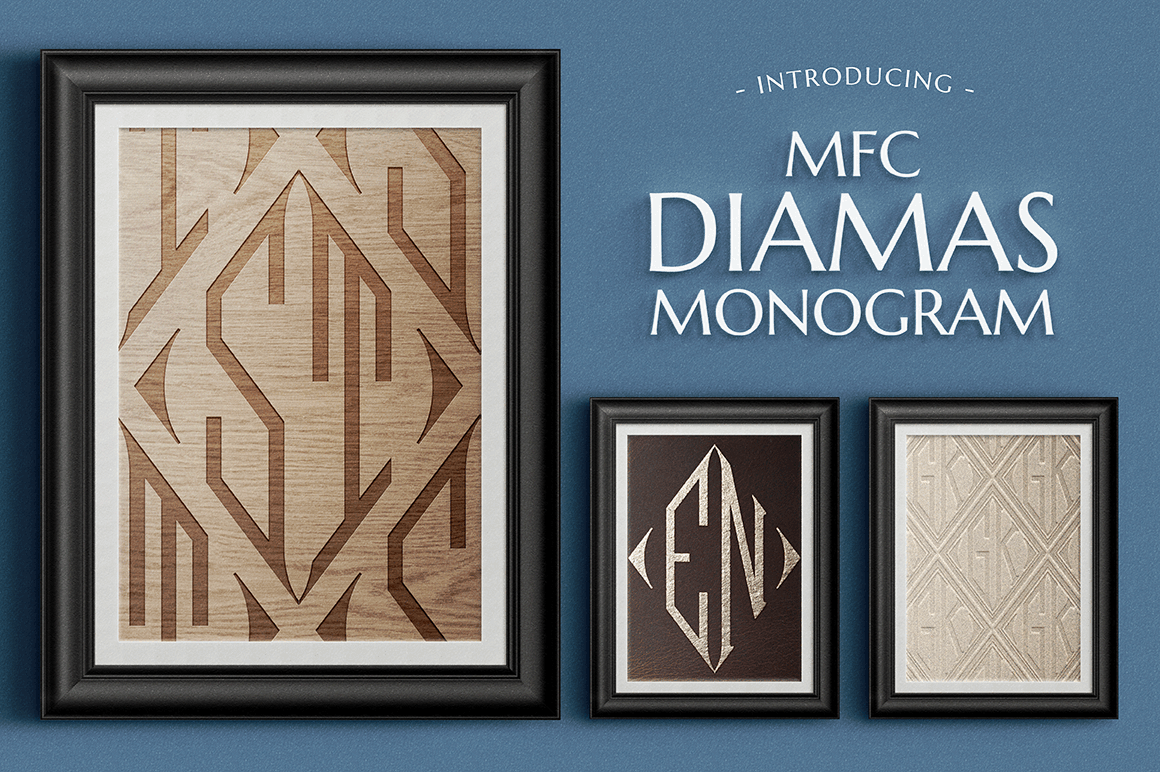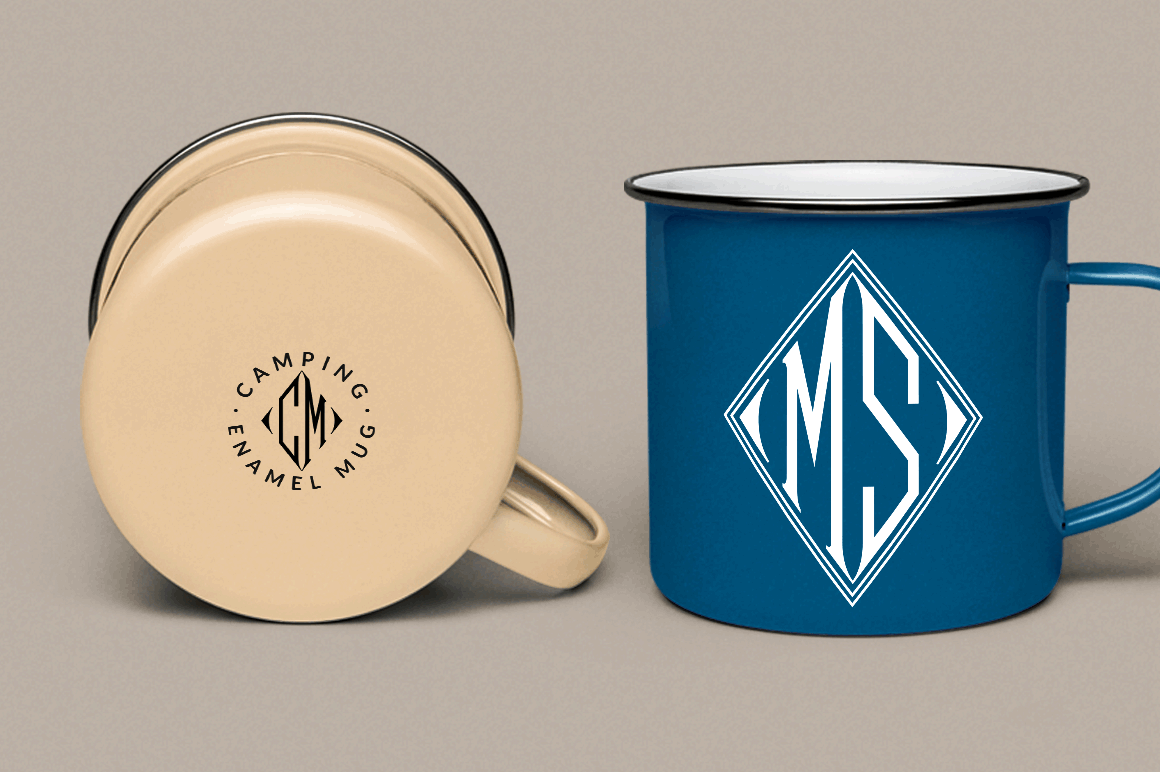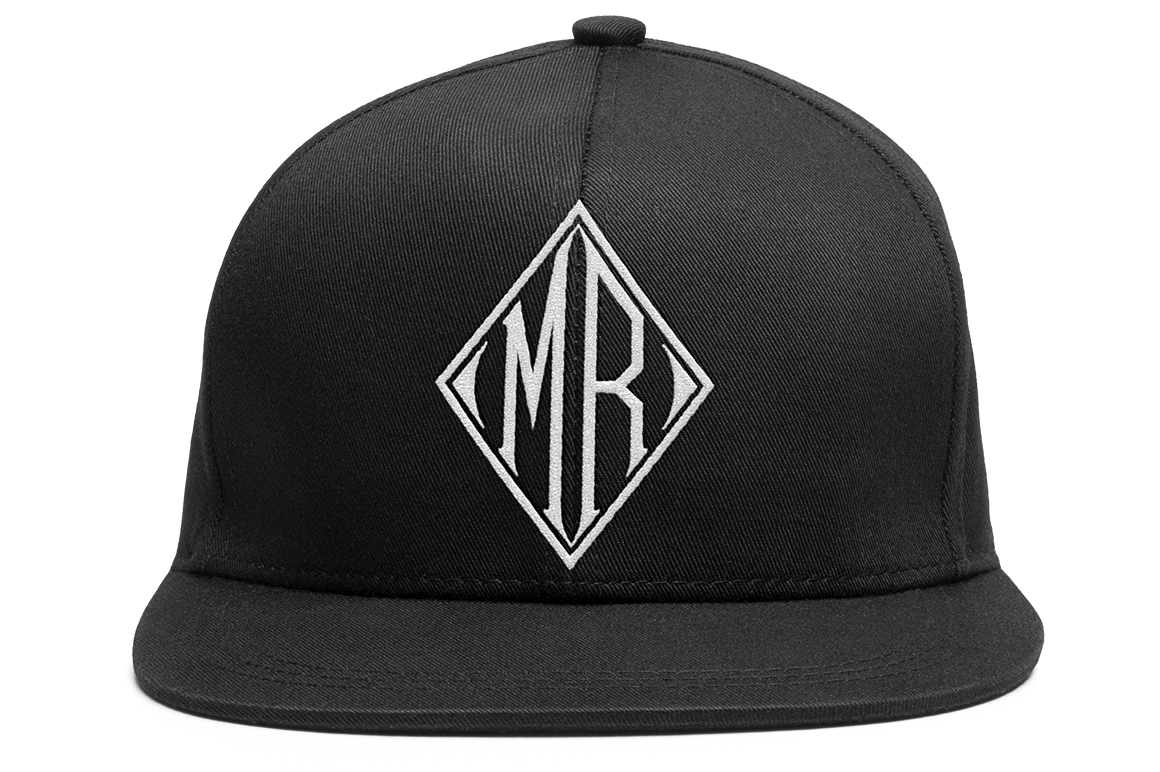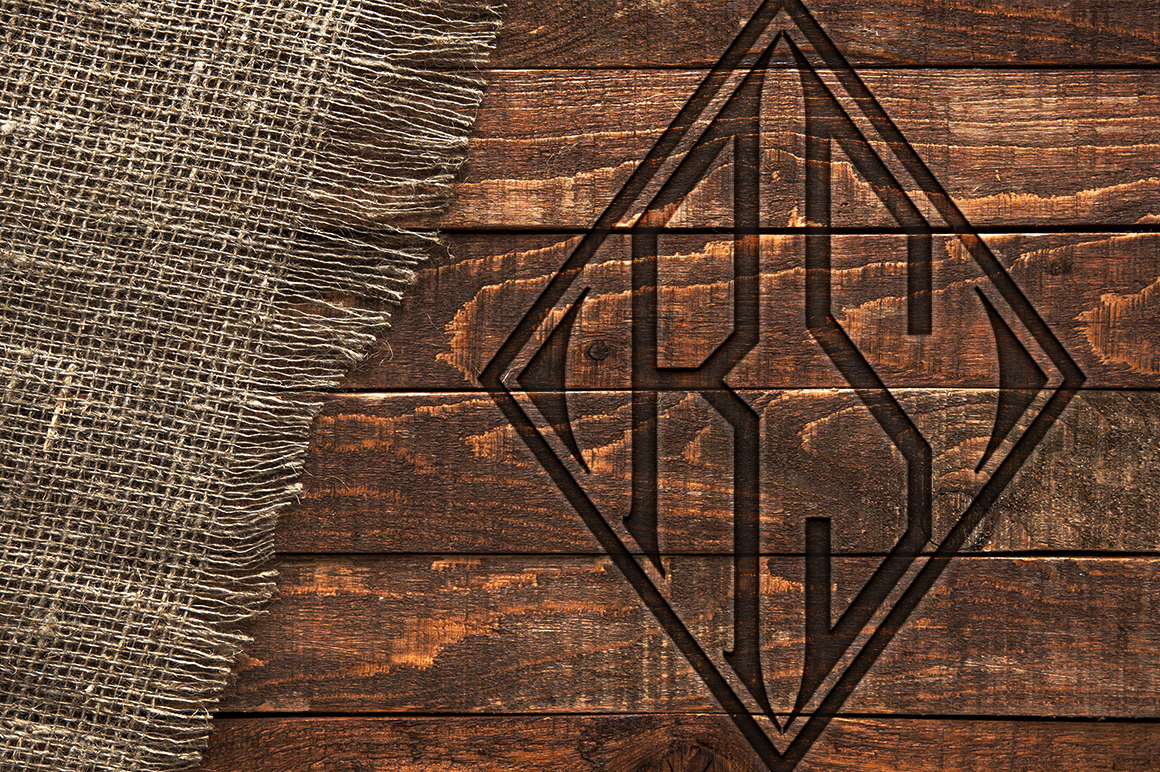
MFC Diamas Monogram
The inspiration source for Diamas Monogram is a vintage publication called ?Bibliotheque D.M.C: Alphabets et Monogrammes 2nd Series?. This wonderful design is representative of the diamond shape monograms that dominated monogramming at the time. This monogram style is now digitally recreated and revived for modern use in Diamas Monogram, with two letter monograms and a selection of additional frame styles for a final classy touch! A PDF guidebook for MFC Diamas Monogram is included in the font package.